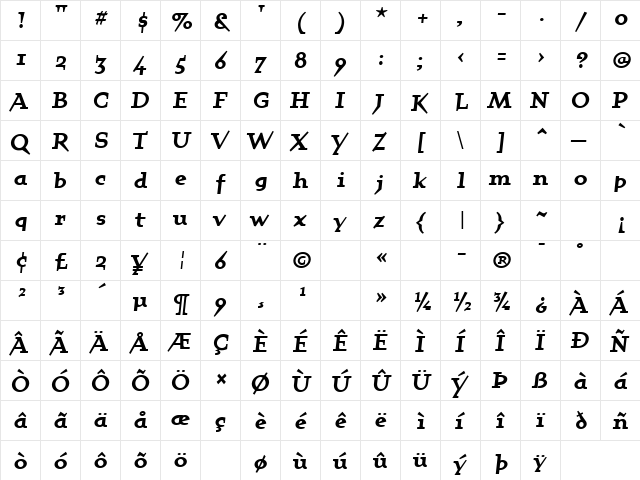
QuartetBoldOldstyle Bold
Design Context for QuartetBoldOldstyle Typeface
QuartetBoldOldstyle carries the refined structure of traditional serif typography, with bracketed terminals and considered proportions that communicate credibility and craft. Its bold stroke weight gives it real presence on the page.